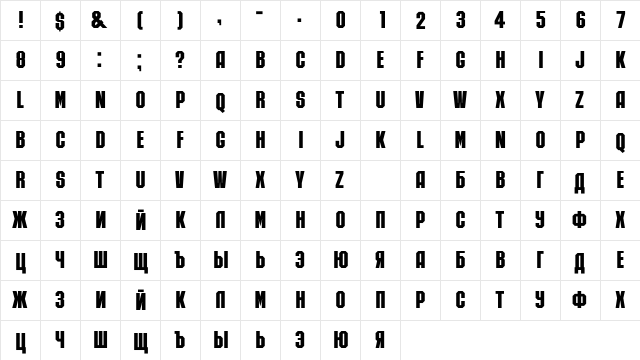
RUBICK Normal
Design Context for RUBICK Typeface
RUBICK offers clean, dependable letterforms without strong stylistic allegiance, making it a practical choice for designers who need flexibility.